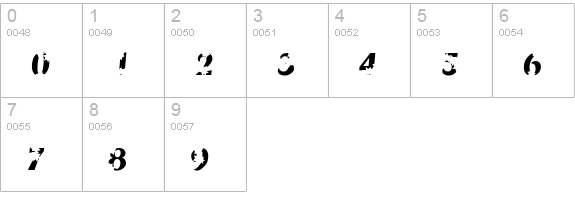
Werewolf SF Bold Italic Font Details
Werewolf SF Bold Italic is a strong, high-contrast, italic variant in the Werewolf typeface family \xE2\x80\x94 well suited to headlines, attention-grabbing titles, and strong calls-to-action.
Introducing the captivating and dynamic Werewolf SF Bold Italic font, a truly mesmerizing typeface that will leave a lasting impression on any design project. This font exudes a sense of power, elegance, and mystery, making it the perfect choice for those seeking to add an extra touch of sophistication to their creations. With its bold and italicized characters, Werewolf SF demands attention and effortlessly commands the viewer's gaze. Each letter is meticulously crafted, combining strong, bold lines with elegant curves, creating a harmonious balance between strength and finesse. This unique fusion of elements makes Werewolf SF Bold Italic font a truly unforgettable choice for any design endeavor. One of the most remarkable aspects of Werewolf SF Bold Italic font is that it is freely available to download at FontsMarket.com. This means that designers and enthusiasts alike can access this exceptional font without any financial constraints, allowing for unlimited creative possibilities. Whether you're working on a personal project or a professional campaign, the availability of this font for free ensures that you can bring your ideas to life without limitations. The versatility of Werewolf SF Bold Italic font knows no bounds. Its distinctive aesthetic lends itself perfectly to a wide range of design applications, including logos, headlines, posters, branding materials, and more. This font's ability to effortlessly convey a sense of strength and sophistication makes it an ideal choice for those seeking to make a bold statement. Don't miss the opportunity to harness the power and allure of Werewolf SF Bold Italic font. Download it freely at FontsMarket.com and unlock a world of creative possibilities that will captivate and enchant your audience. Embrace the elegance, embrace the mystery – embrace Werewolf SF Bold Italic font.